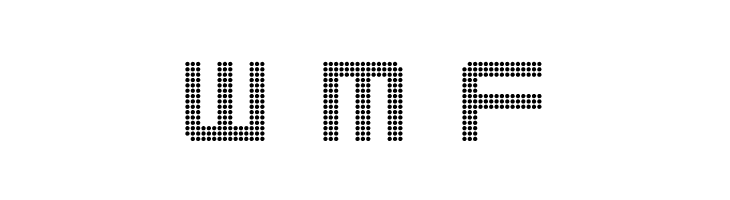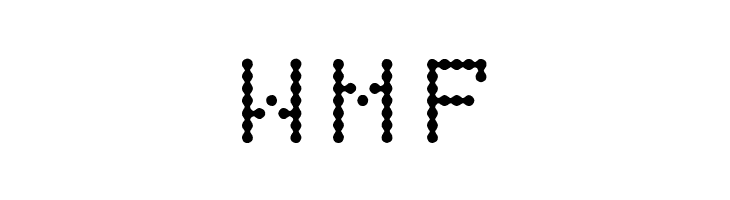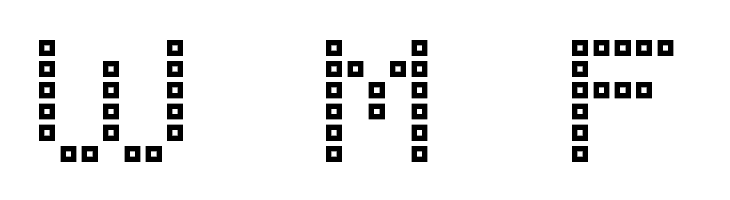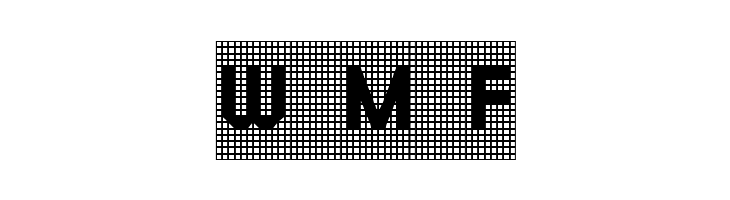
SCOREBOARD Font
Font by Woodcutter
A bold, geometric font inspired by classic mechanical scoreboards.
60s Scoreboard Regular Font
Font by John Isles
A dot matrix font with a retro, digital display aesthetic.
DJB Up on the Scoreboard Font
Font by Darcy Baldwin
A dot matrix font inspired by vintage digital scoreboards.
Crashed Scoreboard Font
Font by Dennis van Schajik - www.zopp.nl
A digital-inspired, segmented font with a bold, geometric design.
Scoreboard LED Regular Font
A pixelated, grid-based font reminiscent of LED displays.
Soccer Scoreboard Font
Chequered Ink - chequered.ink/
A digital dot matrix font ideal for electronic displays and scoreboards.